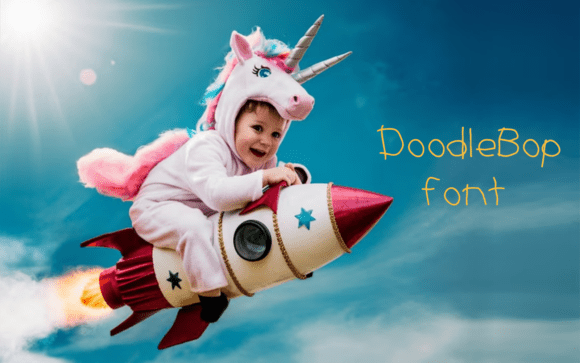
Introduction to Doodle Bop Font
Do you remember the joy of scribbling with crayons as a child, letting your imagination run wild? As designers, we’re always on the lookout for ways to recapture that sense of wonder and creativity in our projects. That’s where the Doodle Bop Font comes in – a playful, expressive typeface that’s sure to bring a smile to any child’s face.
Whether you’re working on a kids’ book, toy packaging, or educational content, the Doodle Bop Font is a valuable design resource that’s sure to add a touch of whimsy and fun to your creative project. With its transparent background and high-quality design, it’s the perfect addition to any digital or print design.
Key Features of Doodle Bop Font
- High-quality design resource ideal for creative projects, offering a unique and playful style.
- Features a bold and vibrant design, suitable for use in digital and print-based creative projects.
- Perfect for designers and artists looking for a distinctive and eye-catching design element for their creative project.
Honest Review: Doodle Bop Font
I recently stumbled upon the Doodle Bop Font and I must say, it’s been a great addition to my design arsenal. As a designer, I’m always on the lookout for unique and creative resources to elevate my projects.
Here are some things that work well with this font:
- High quality graphics that add a fun and playful touch to my designs.
- Transparent background, making it easy to layer over other design elements.
- ⚠️ Limited character set, which might be a issue for longer texts.
- ⚠️ Not suitable for formal or professional projects, due to its playful nature.
Overall, I’m impressed with the Doodle Bop Font. It’s a great resource for creative projects that require a lighthearted and whimsical touch. If you’re looking for a fun and free font to add some personality to your designs, I’d definitely recommend giving it a try! ✨
The Doodle Bop Font is a versatile design resource that can be used in a variety of creative projects. Some common use cases include:
– Designing social media graphics with a playful and whimsical touch.
– Creating high-quality illustrations with a transparent background.
– Adding a touch of personality to presentations and reports.
Alternatives to Doodle Bop Font
Comic Sans MS is a fun, casual font suitable for creative projects that require a playful tone. It is a great alternative to Doodle Bop Font when you need a high-quality, free download with a transparent background.
Use Comic Sans MS for projects like social media graphics, flyers, and posters. It is a versatile font that can add a touch of whimsy to your design.
Compared to Doodle Bop Font, Comic Sans MS is more widely available and has a larger character set, making it a great choice for longer texts.
Curlz
Curlz is a cursive font that is perfect for adding a touch of elegance to your design. It is a great alternative to Doodle Bop Font when you need a high-quality, free download with a transparent background.
Use Curlz for projects like wedding invitations, birthday cards, and other creative projects that require a touch of sophistication.